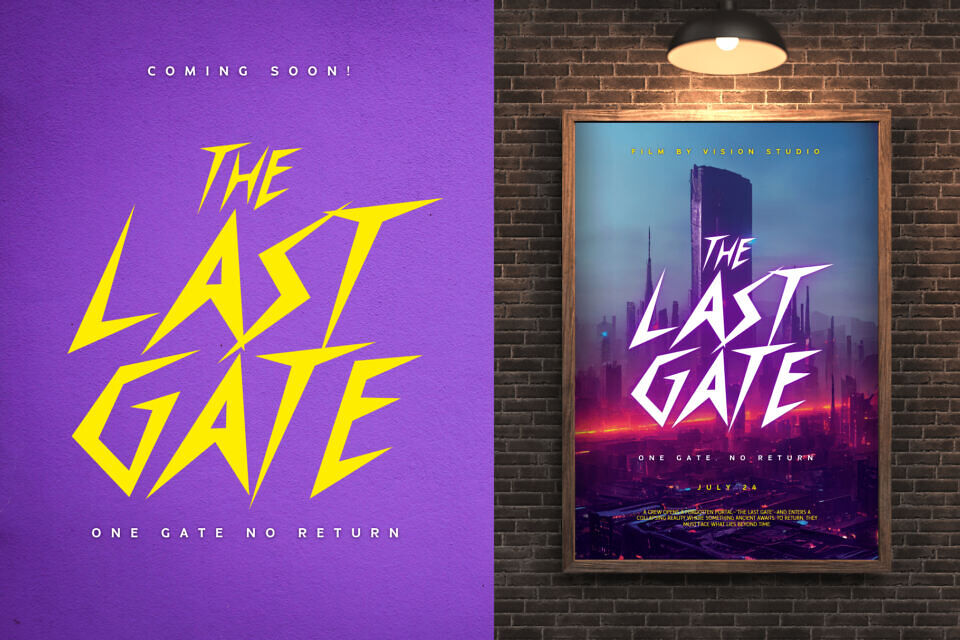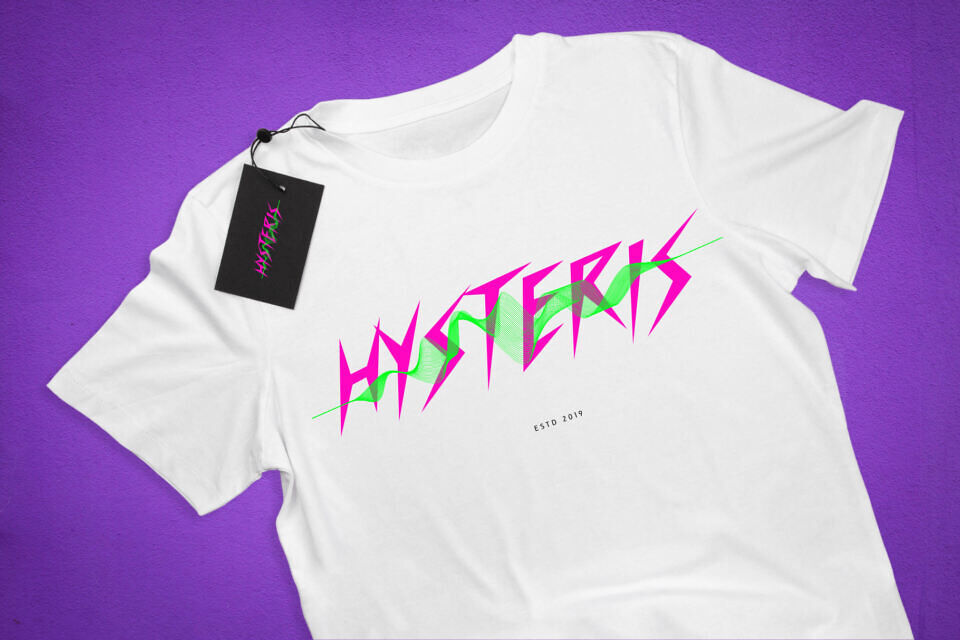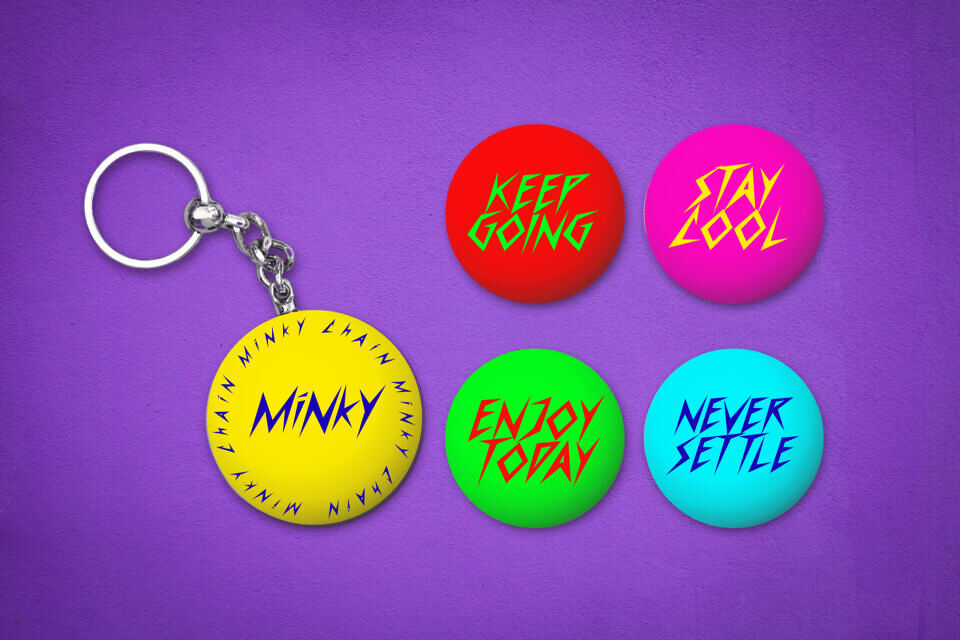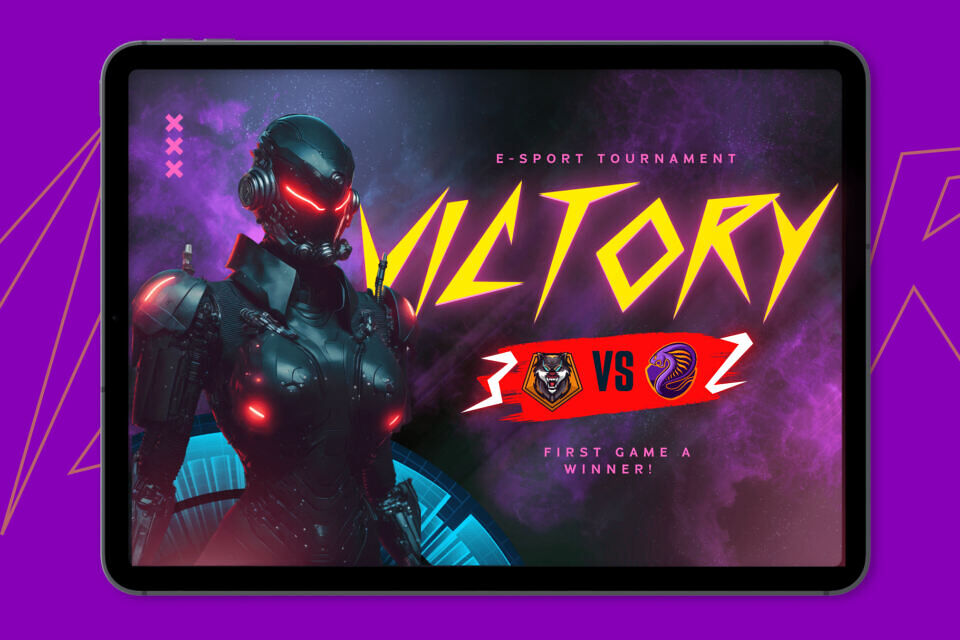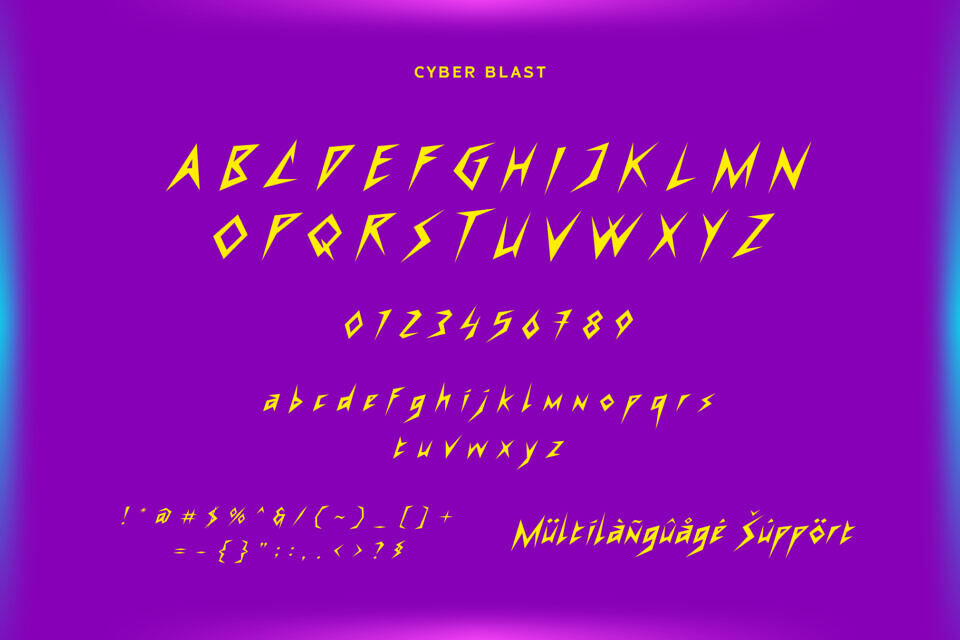
Cyber Blast Font
Cyber Blast is a futuristic display font inspired by cyberpunk aesthetics, sci-fi tech, and urban street energy. With sharp angles, digital vibes, and bold geometric shapes, this font brings a high-tech edge to your designs.
Perfect for game titles, tech branding, posters, and anything that needs a modern, cutting-edge look. Step into the future with Cyber Blast and electrify your visuals with bold digital power!